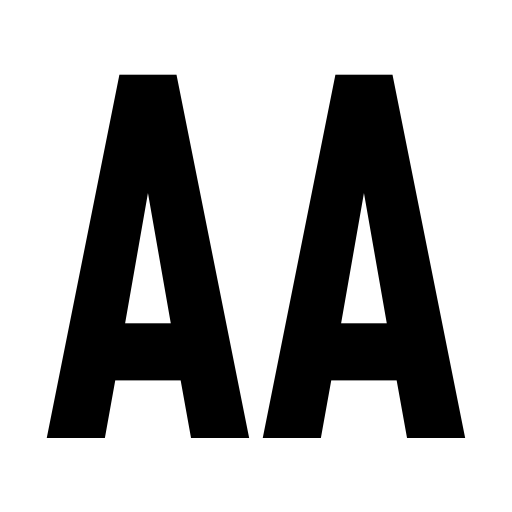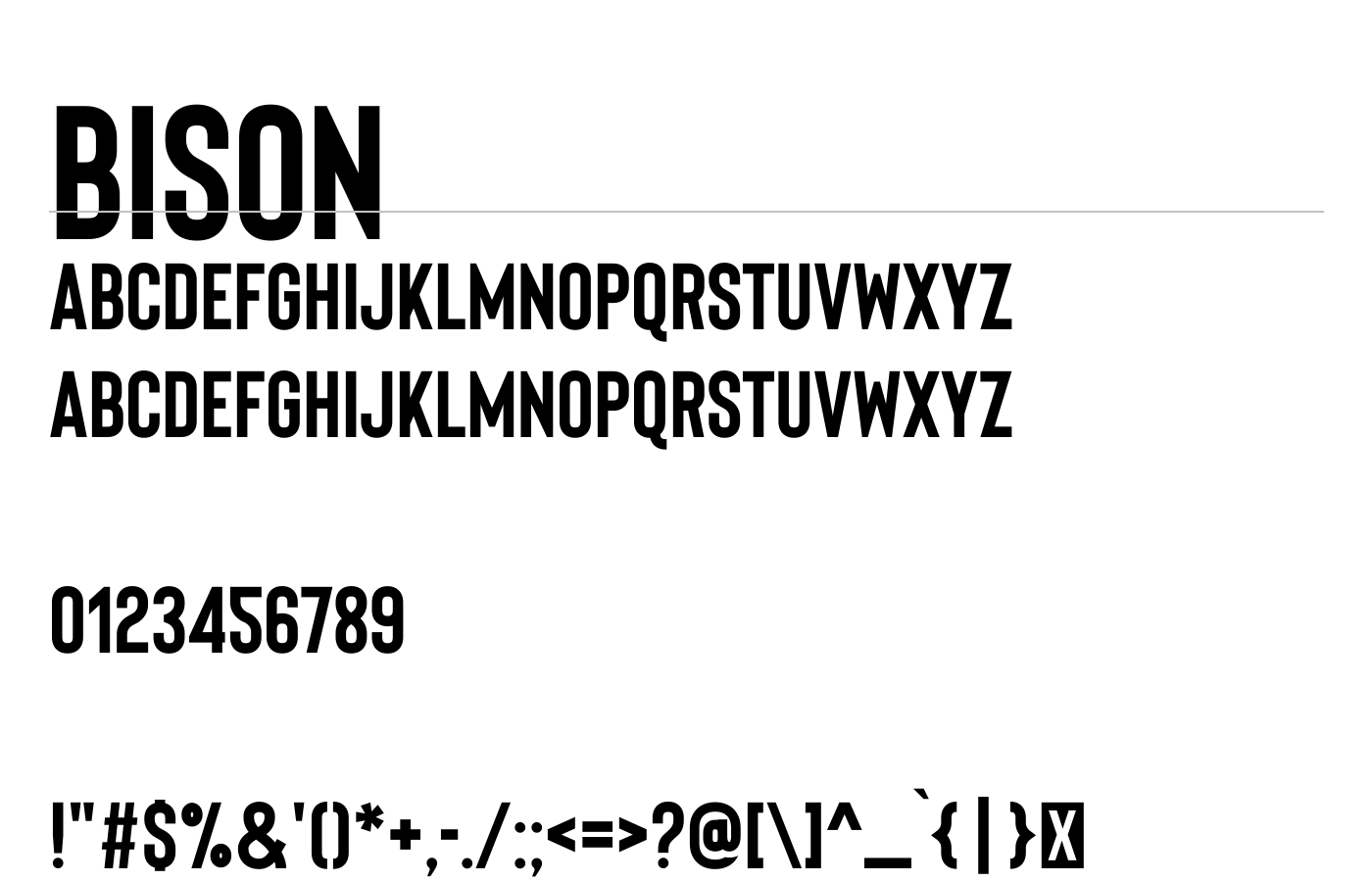
Bison is a bold, condensed sans-serif font with a strong, modern look characterized by its tall, narrow letterforms and uniform stroke weight. Its clean, geometric shapes make it ideal for impactful headlines, logos, and branding projects that demand a confident and contemporary feel. This font works especially well in designs that need to convey strength and professionalism while maintaining a sleek, minimalist style.
Bison Font
About Bison Font
| Designer | Ellen Luff |